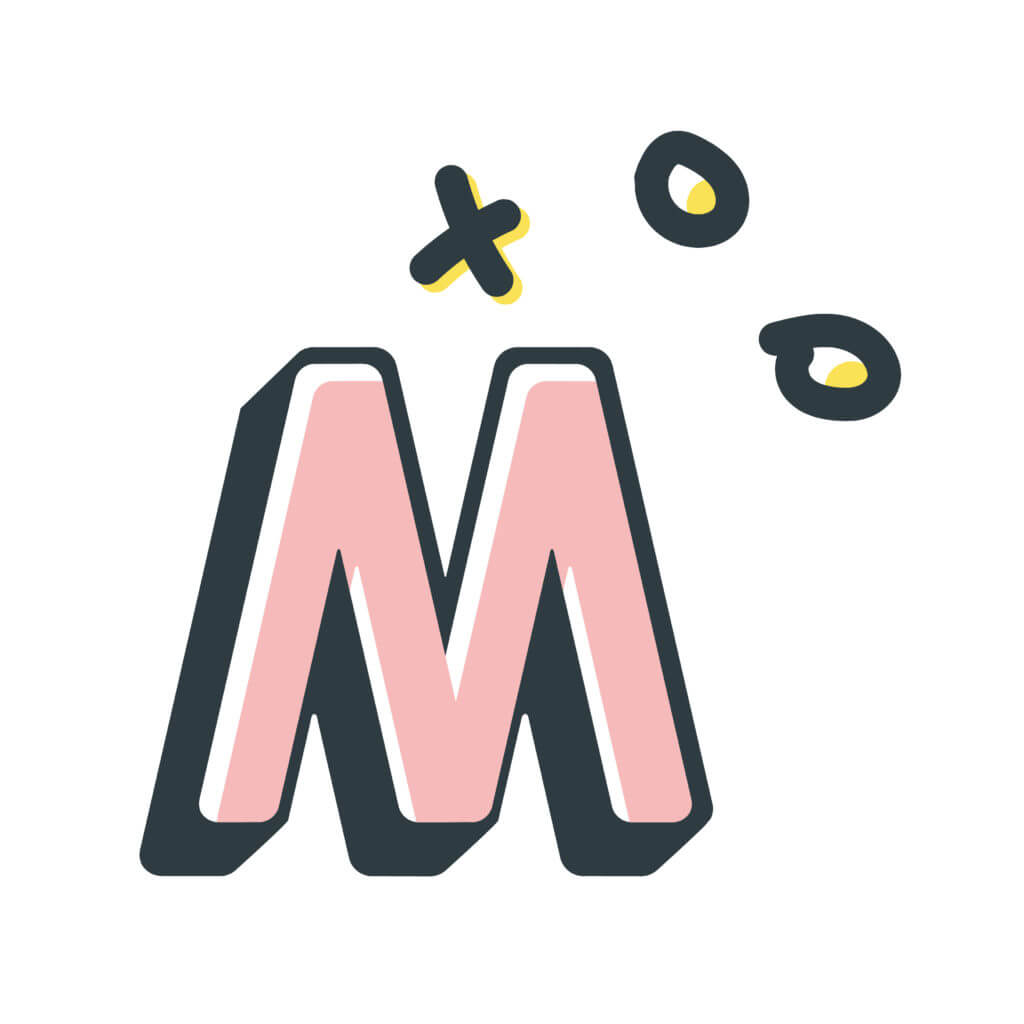
Design Ideas and Design Process
For my Illustrator task, I decided to create three completely different logo concepts. I wanted to showcase one simple design and two more complex ones, this was so I could display a range of existing skills and some newly learnt ones. I went a bit overboard with the number of designs as I wanted to showcase a huge range of skills – they ranged from simplistic to more technical designs.
For my first design, I simply used the font Toonish and layered two copies on top of one another. By outlining the font, it meant I was able to position the top layer slightly more to the left and upwards. I then changed the bottom layer to black so it then resembled a drop shadow effect.
For my second design, I used the pen tool to create an m type shape. I then copied this and inverted it to create the fill version – I used the gradient tool to create the rainbow effect.
For my third design, I started by using a long rectangle with curved corners to create an upside-down V. From here I altered and connected the edges by using the pen tool and repeated the shape to create the overall M outline. For the navy shadow, I used the same outline but altered the edges to give it more depth. I liked the look it of with the white M and blue shadow but felt like it was missing something. I added the pink detailing by laying a pink m on top of the white one and using the shape mode, intersect to cut away the sections that overlapped off the bottom layer m.
For my next design, I had a play with a calligraphy style – I created this by using the Pen tool and changing the brush definition to 5pt flat. This meant the line wasn’t a consistent thickness and therefore looked like it had been drawn with a nib pen.
For the rest of my designs, I created them by experimenting with lines, fonts and shapes. These designs better represent my style – I enjoy minimal designs and using an earthy palette. The serif font I used across these designs was Neuton, I just used it in various forms (extra light and regular).
For my ‘Rainbow M’ logo, a lot of the skills and shortcuts I used, I already had an understanding of. I’d previously experimented with creating my own shapes, using the pen tool but when it came to adding the rainbow gradient I had a little trouble. Every time I tried to add the gradient, it essentially restarted at each of the joints of the shape, rather than covering the whole group of shapes. By watching the tutorial ‘Creating a Gradient Across Multiple Objects Illustrator’, I was able to learn that by selecting all of the shapes and clicking ‘Make Compound Path’, illustrator makes them a group and therefore sees them as one path or shape. This’ll come in handy when adding gradients to outlined text, as they’re also treated as separate shapes.
Resources for Research and Inspiration
I started this task by looking on Pinterest at different letter logos – by creating a board on Pinterest, I was able to highlight my favourite ideas. Being able to refer back to the Pinterest board meant I was able to chop and change features of other logos and incorporate them into my own designs. It helped me to develop my ideas and progress them into something I initially hadn’t thought about.
On the other hand, you can see from my pins, I tend to gravitate towards minimal, monochrome designs. On reflection, this is and was one of my downfalls when it came to this task. I need to push myself to look at designs that I might not necessarily like but were made by using skills that I don’t possess. Or even, if they look complex and like something I can’t do, then break down what I think they’re made up of and watch tutorials on the skills I don’t occupy. I also need to not limit myself to Black & White – it’s not like any of the logos were going to be used so I should have played around with more colour variations.
I also think it would have been beneficial to look at designs that consisted of two letterforms. This would have given me an insight into how other designers integrate multiple aspects.
Since designing my logos, I’ve read the article ‘What Makes a Good Logo: The Dos and Don’ts’ by Wix Blog – this is something I’d have benefit hugely from in my initial planning stages. I was surprised that the article didn’t focus on having an image-led logo but instead spoke about the aspects that often get overlooked. These include; space, readability, background contrast and aligning all your elements.
In the future, I’d like to explore text effects more. The article ‘The Top 80 Adobe Illustrator Text Effects Tutorials’ offers a huge variety of text effect tutorials. With the selection they offer, I have the ability you can learn how to create blurry, bubbly, retro, or futuristic effects.